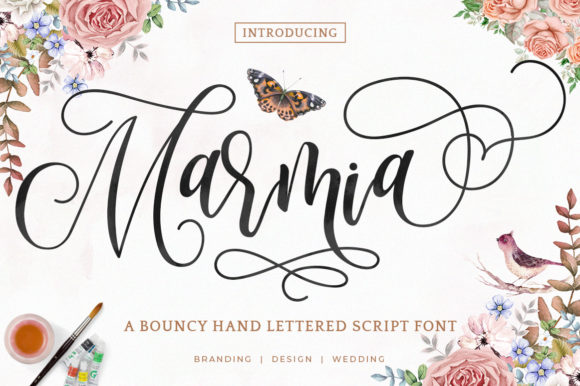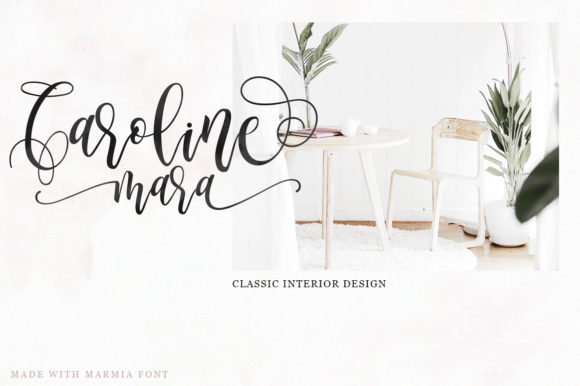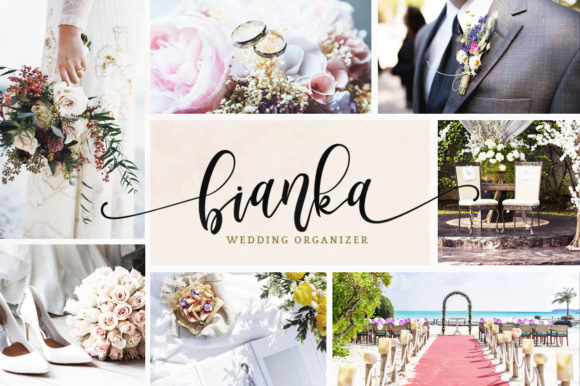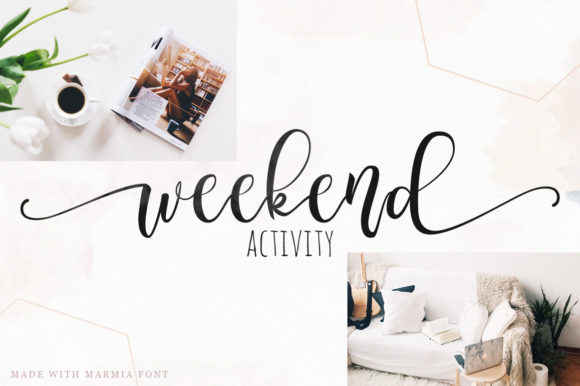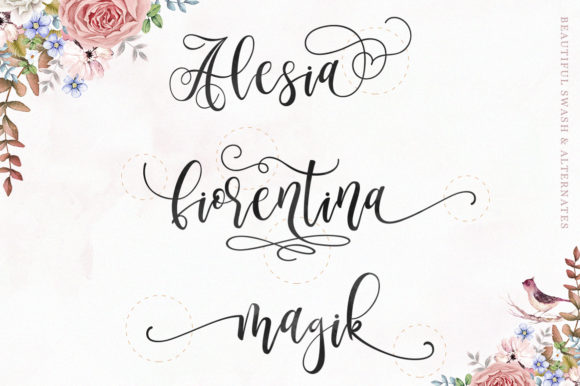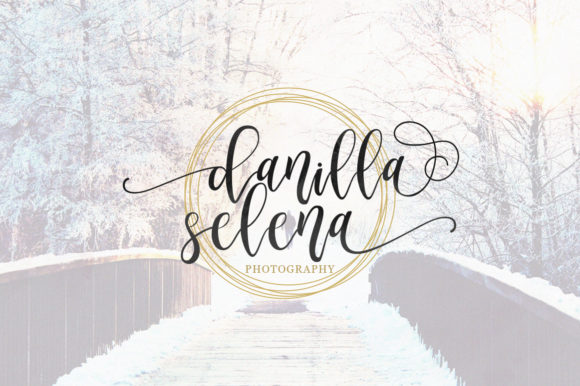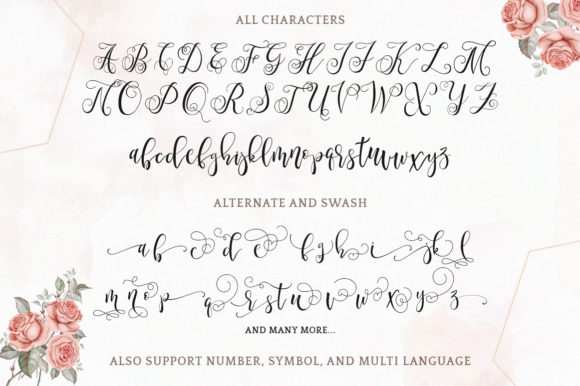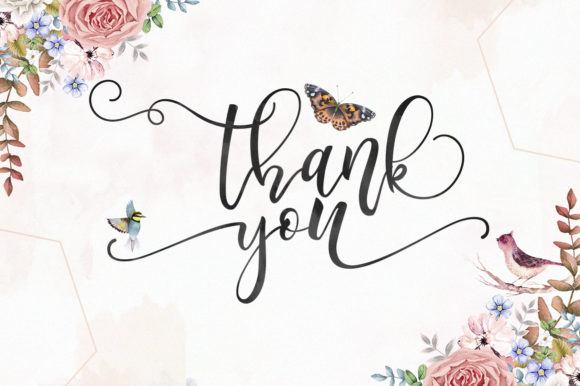
Marmia Font
About Marmia Font
The Marmia is a bouncy hand-lettered script font. It is full of hearts and glyphs and is perfect for branding, wedding invites, cards, and many projects that require style and elegance.